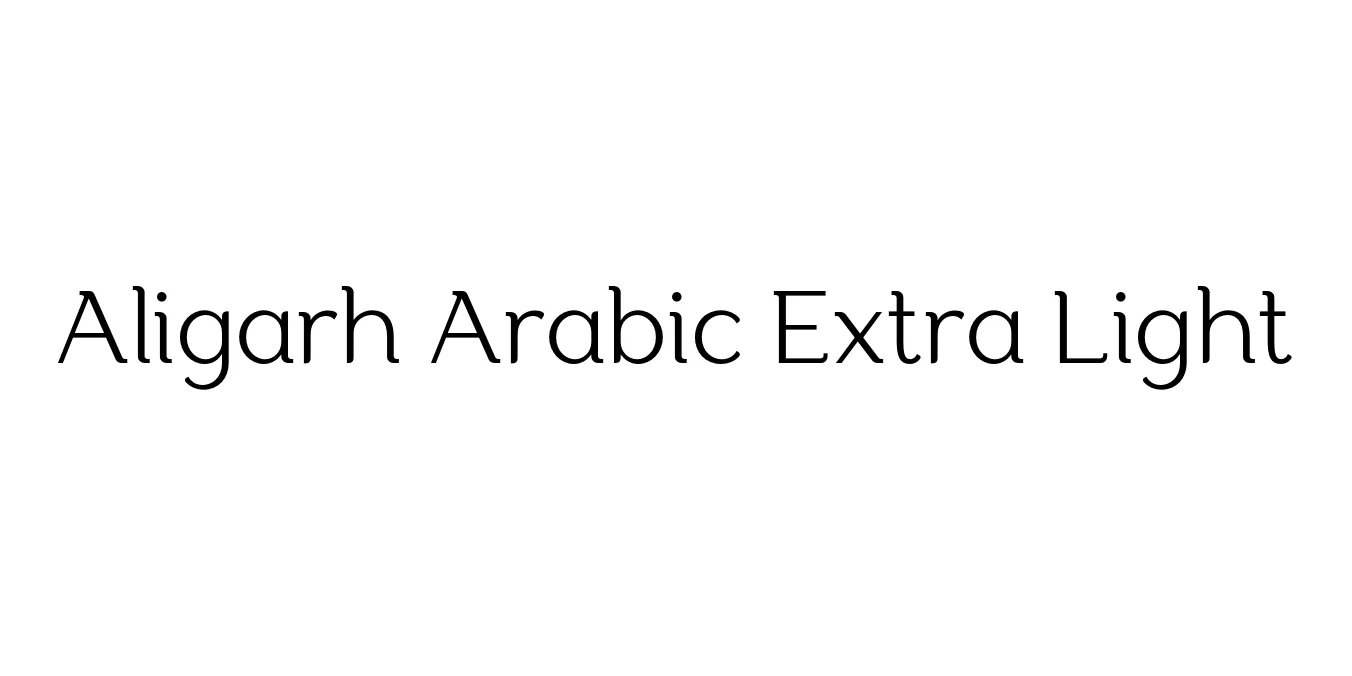
Aligarh Arabic Extra Light
Designed by Mustafa Al-Alami
| Category | Arabic / Sans Serif |
| Designer | Mustafa Al-Alami |
Aligarh Arabic Extra Light is a sophisticated and contemporary typeface that masterfully blends the rich heritage of Arabic calligraphy with modern geometric precision. This specific weight offers a delicate, airy feel that is perfect for high-end design projects requiring a touch of elegance and clarity in the script.
Designed with legibility and aesthetic appeal in mind, the Extra Light variant excels in large-scale applications such as headlines and luxury branding. Its clean strokes and open counters ensure a graceful presentation across both digital and printed platforms, making it a versatile choice for modern designers working on multilingual projects.
Aligarh Arabic Extra Light Best Uses
Perfect for luxury magazines, poetry collections, and sophisticated print layouts.
Ideal for high-end fashion, lifestyle brand identities, and premium product packaging.
Great for minimalist website headers, hero sections, and clean user interface elements.